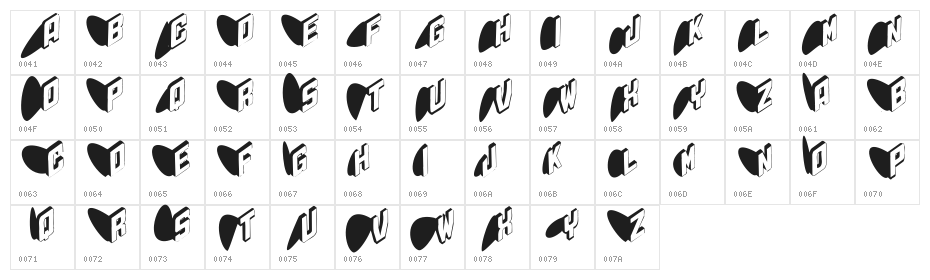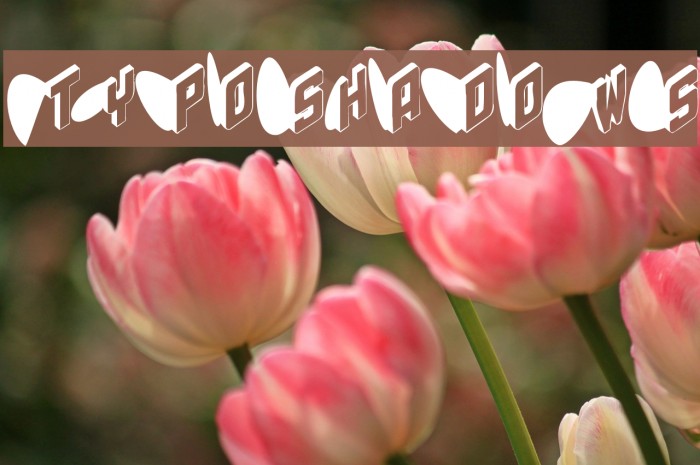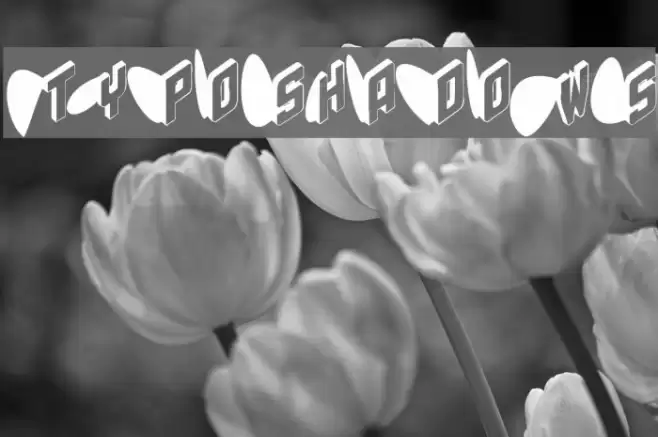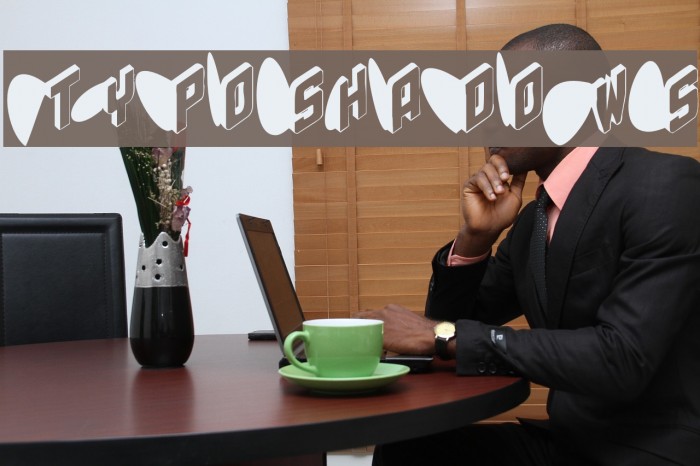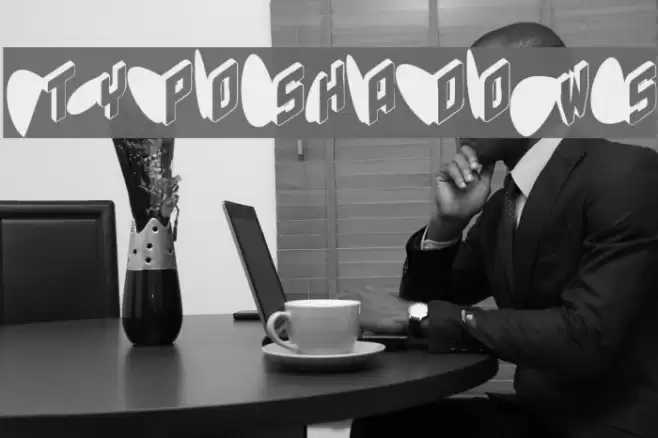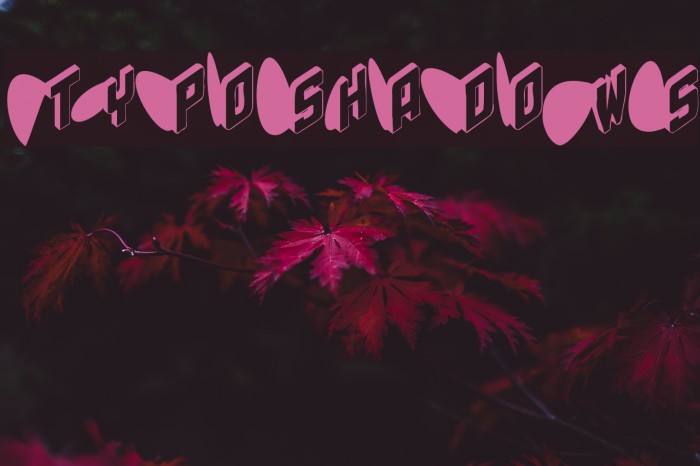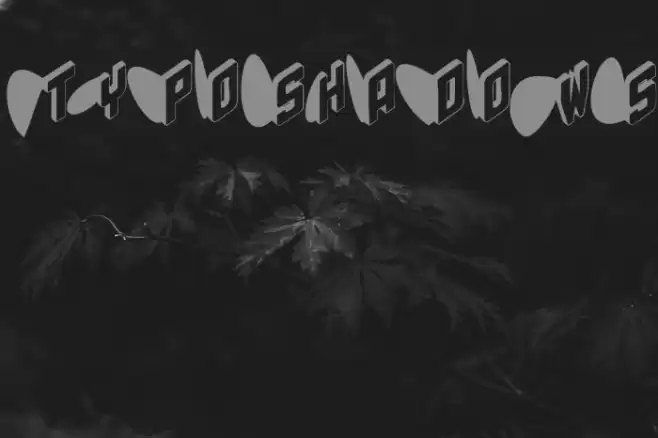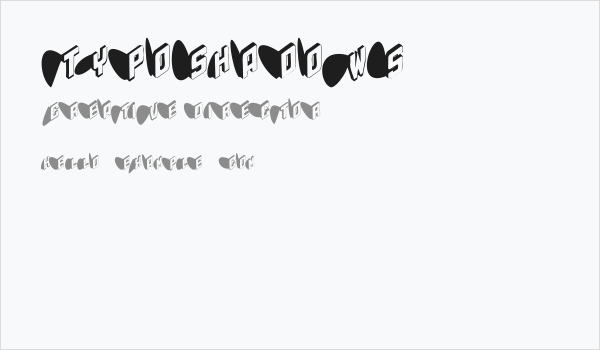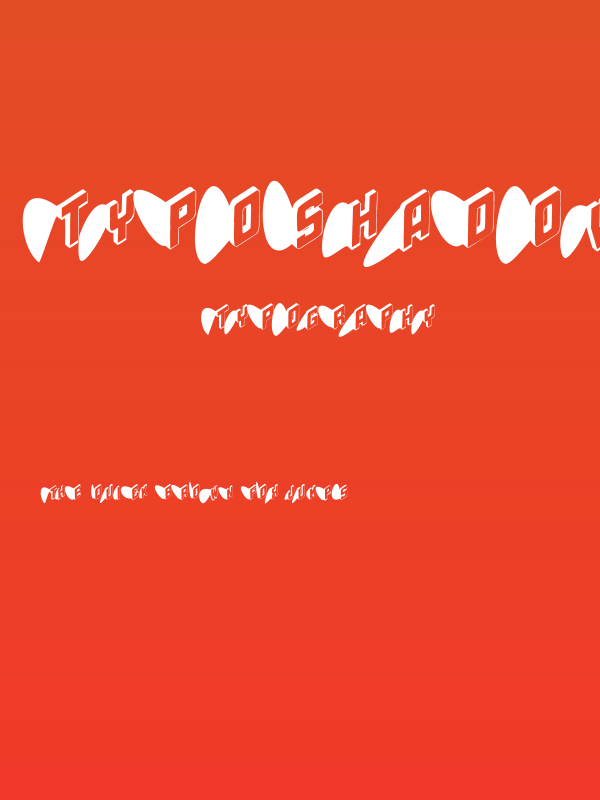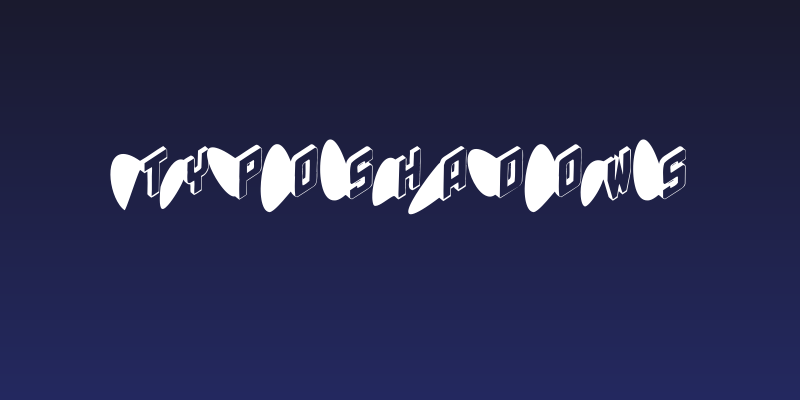
TypoShadows Font
TypoShadows Description
This font features a bold, three-dimensional design with a striking shadow effect that gives each character a sense of depth and movement. The letters are uppercase, with a geometric style that emphasizes sharp angles and clean lines. The shadowing is consistent across all characters, creating a cohesive look that is both modern and eye-catching. The font's unique aesthetic makes it ideal for projects that require a strong visual impact, such as posters, headlines, or branding materials. Its bold presence ensures that it stands out in any context, making it a versatile choice for designers looking to make a statement.
| Proposed Projects | Ideal for posters, headlines, branding materials, and any design requiring strong visual impact. |